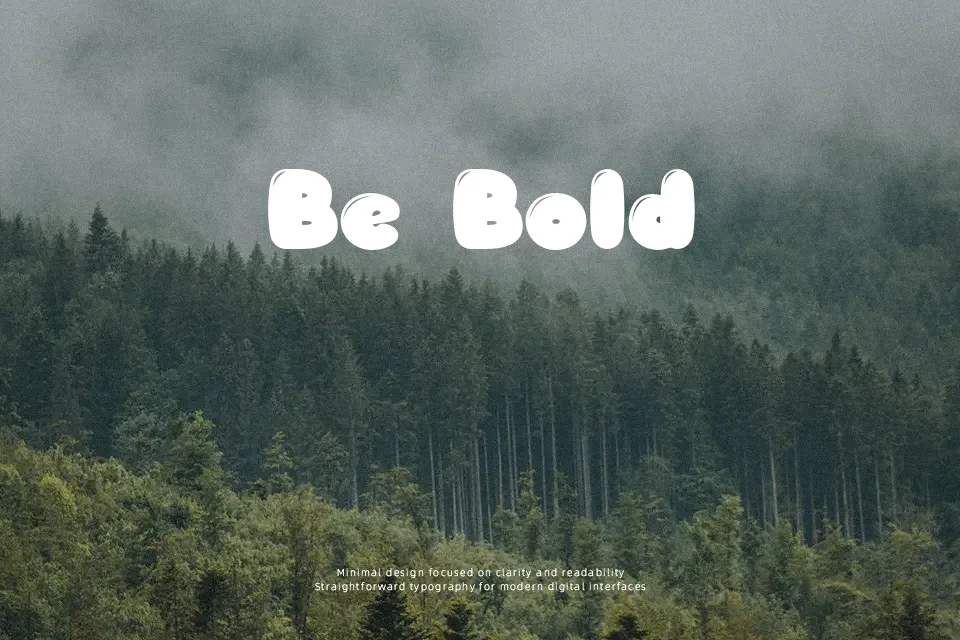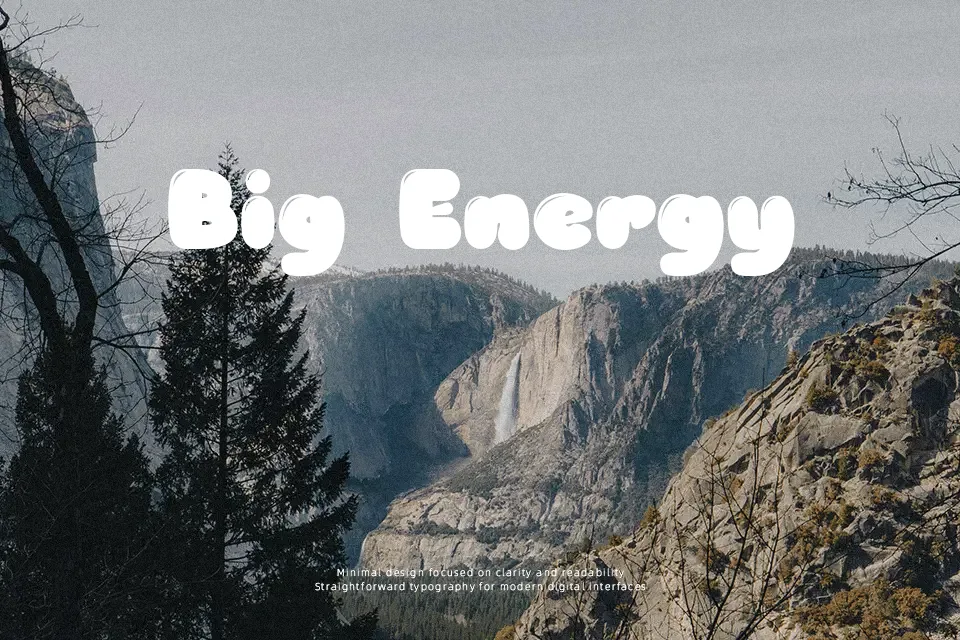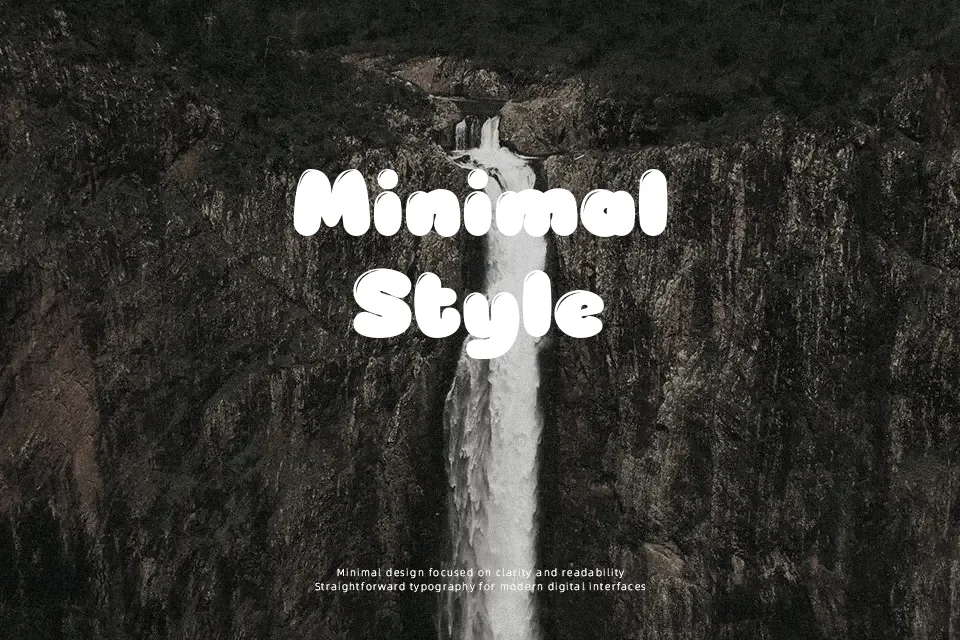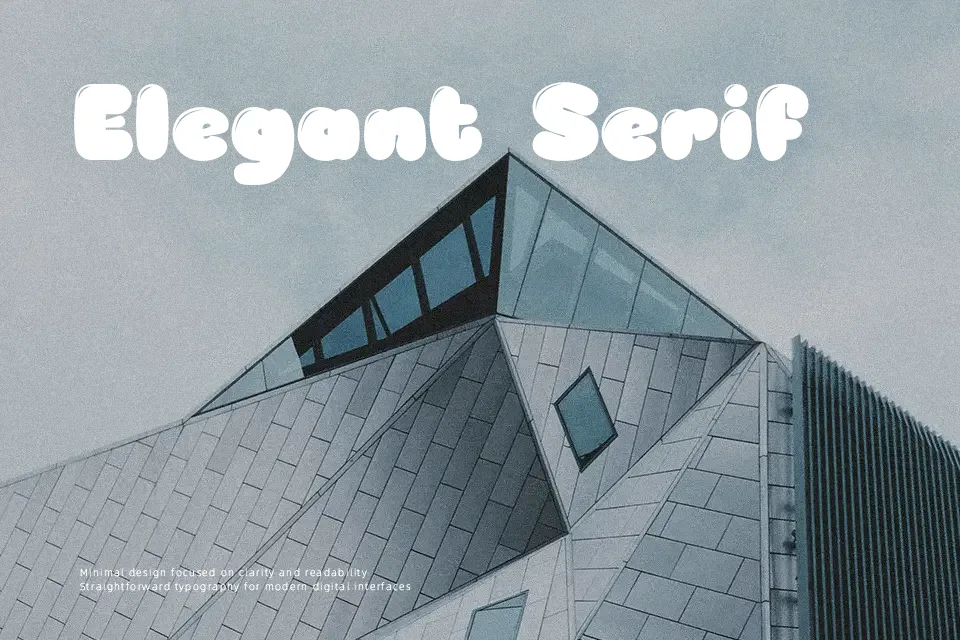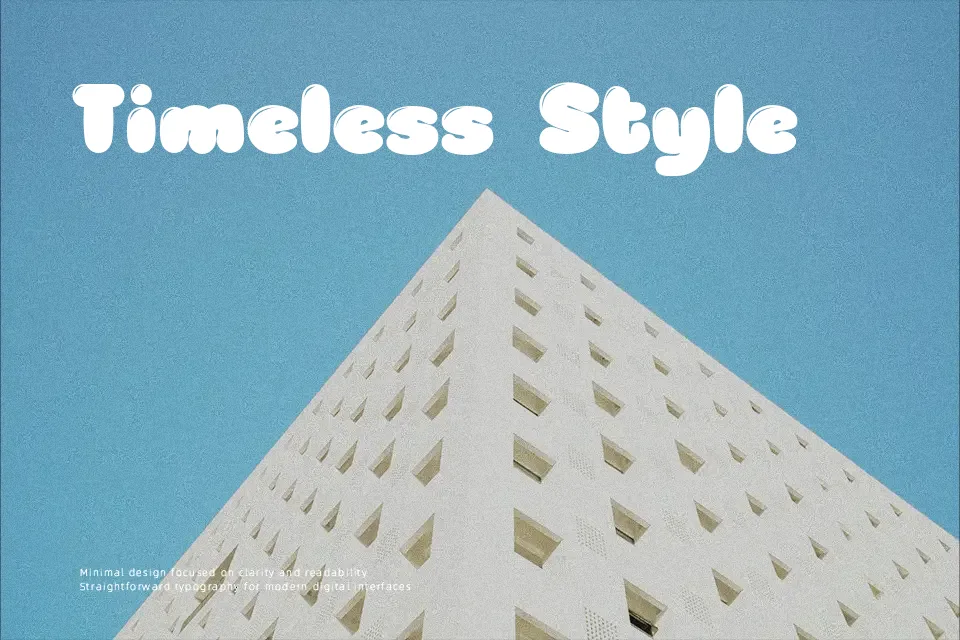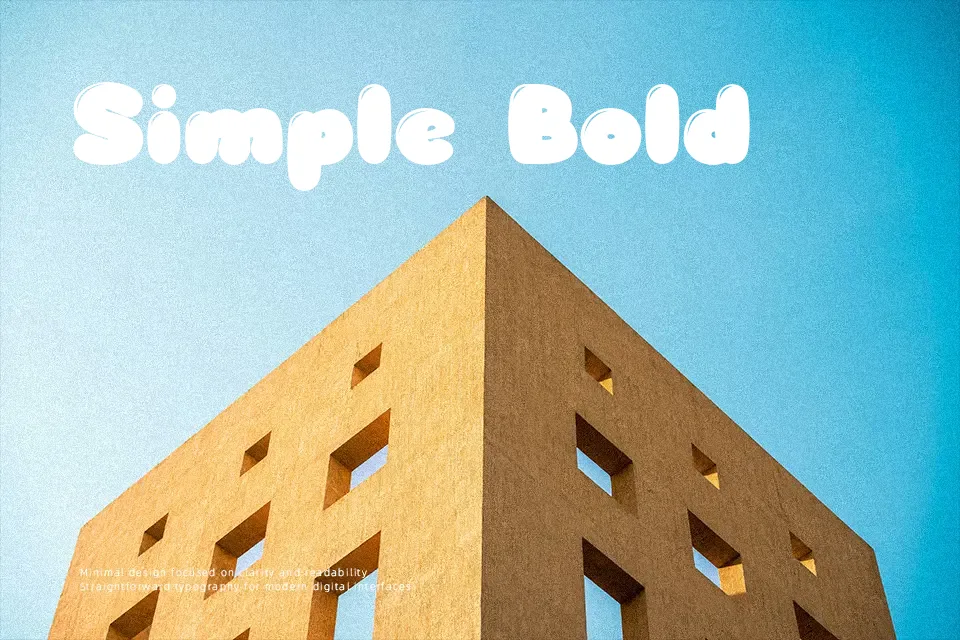
Tijuf Font
Designed by twinletter
Tijuf Font relies on hefty, bulbous strokes with softened terminals and minimal counter spaces to establish a bouncy visual presence. The letterforms exhibit consistent, circular proportions paired with snug kerning, producing tight word shapes that hold together firmly on billboard headlines, toy branding, and mobile game interfaces. Because the extreme stroke thickness dominates interior counters, the typeface maintains crisp legibility at substantial display scales but deteriorates quickly in dense settings. Fine body copy, editorial paragraphs, and compact captions cause the circular counters to clog, making continuous reading strenuous. Consequently, the design succeeds best when reserved for brief, punchy display accents.
Best For: children’s book covers, toy packaging, arcade game titles, comic book headers
Not Ideal For: extended body text, technical documentation, corporate financial reports, small interface captions